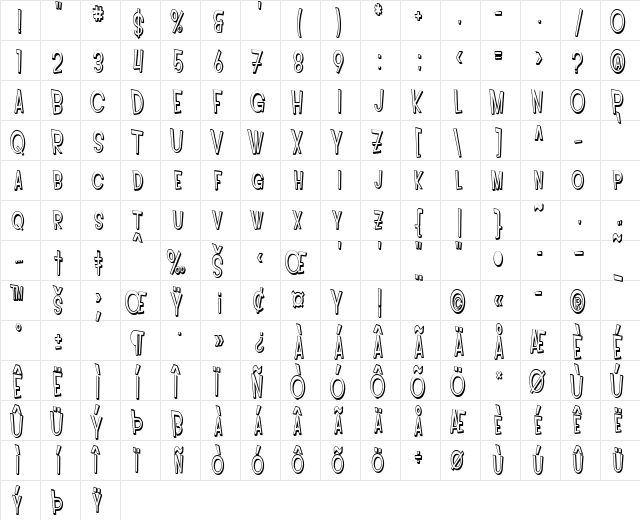
SF Intoxicated Blues Shaded Regular
Design Context for SF Intoxicated Blues Shaded Typeface
SF Intoxicated Blues Shaded is a composed and adaptable typeface that performs quietly and consistently across a wide range of design contexts.